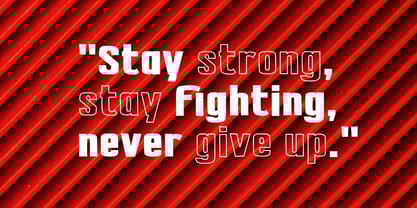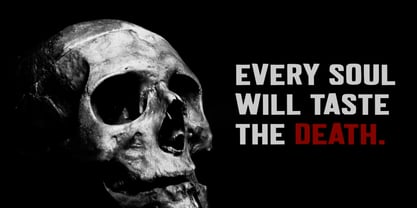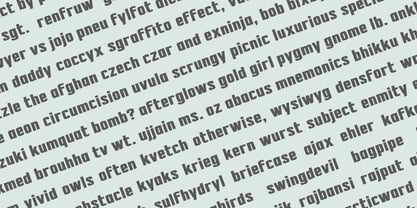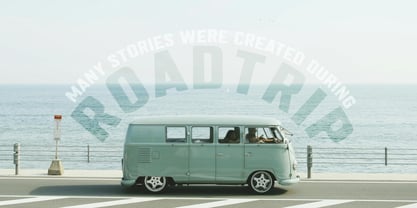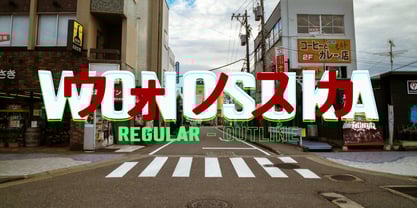
Wono Suka
La familia tipográfica Wono Suka fue diseñada por Wahyu Eka Prasetya, Dian Angga Marytama y publicada por Letterytz CalliType. Wono Suka contiene 2 estilos y opciones de paquete familiar.
Wono Suka
Wono Suka is a bold and contemporary display typeface that blends street attitude with modern typographic rhythm. With Regular and Outline styles, it creates dynamic contrasts that are perfect for visual storytelling—from edgy posters and urban apparel to digital graphics and branding that demands attention.
Inspired by the punch of motivational slogans and the grit of city life, Wono Suka thrives in high-impact, high-energy layouts. Its geometric base keeps the characters clean and legible, while the mixed weight treatments let you play with contrast and hierarchy effortlessly—like shouting “Stay Strong, Stay Fighting, Never Give Up” in style.
This font is your visual megaphone—assertive, experimental, and culturally expressive. Ideal for streetwear, gaming visuals, music covers, merchandise, and any project that thrives on loud, proud, and unfiltered vibes.
Font Features:
• Uppercase A–Z
• Numbers & punctuation
• Regular and Outline styles
• Clean geometry meets urban punch
• Multilingual support
• Suitable for headlines, logos, apparel, posters, packaging